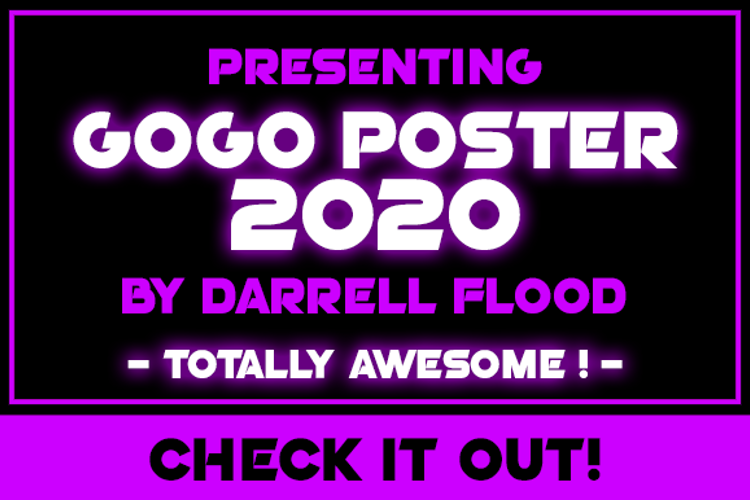
Go Go Poster 2020 Font
About Go Go Poster 2020 Font
GoGo Poster 2020 V1.0
A new take on my popular GoGo Poster Punch font.
2020 includes subtle angles, various cut aways and character tweaks, to modernize and maximize visual appeal and impact.